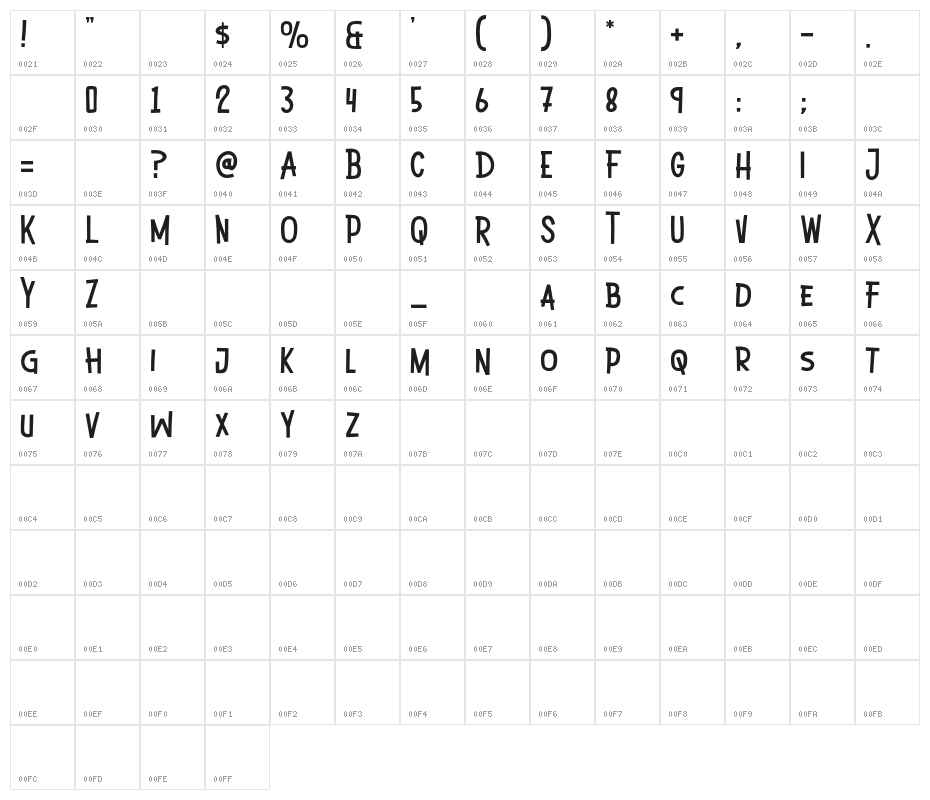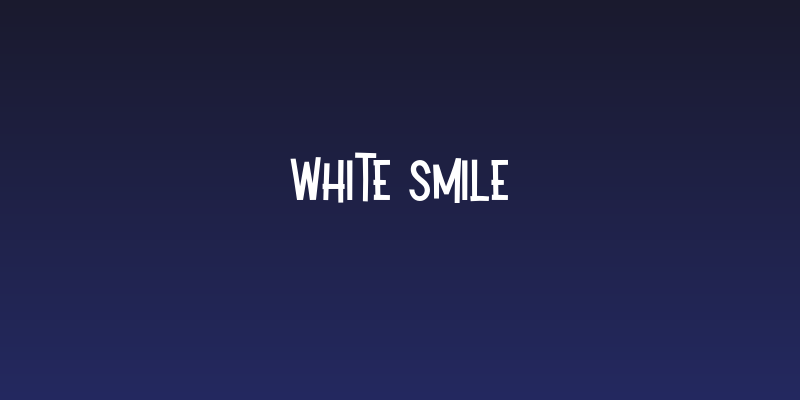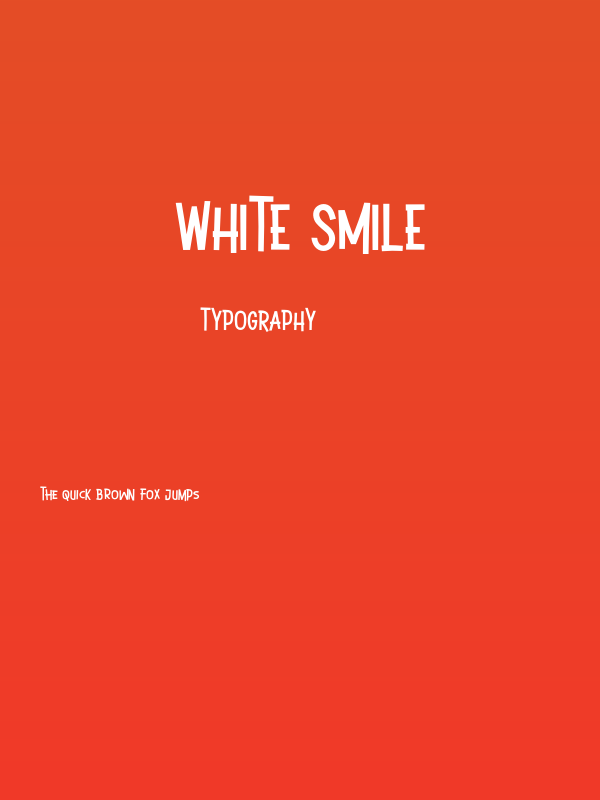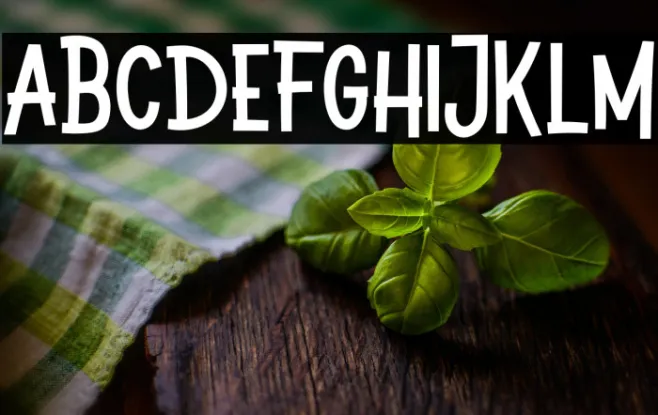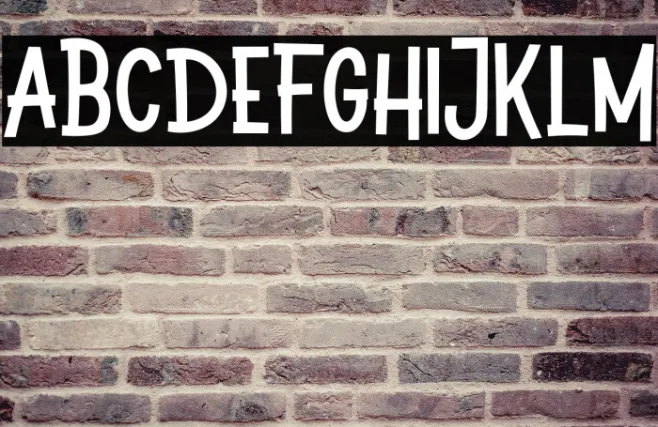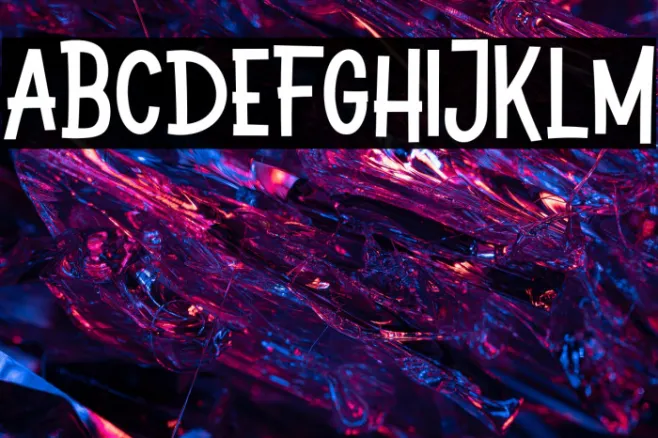
White Smile Font
White Smile Description
This font features a playful and bold style with a hand-drawn appearance. The letters are slightly irregular, giving it a whimsical and informal look. The uppercase and lowercase letters are distinct, with a notable variation in stroke width that adds to its charm. The numbers and special characters maintain the same playful aesthetic, making it versatile for various creative projects. The overall design is eye-catching and suitable for projects that require a fun and engaging typeface.
| Use Case | Headlines, Posters, Branding |
| Proposed Projects | Ideal for children's books, playful branding, posters, and creative invitations. |